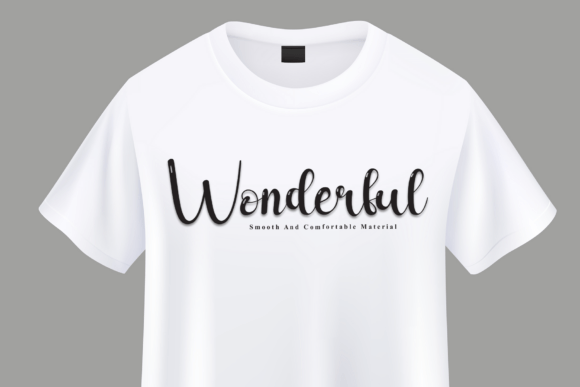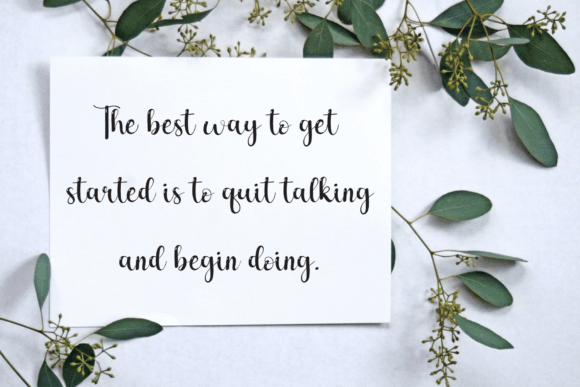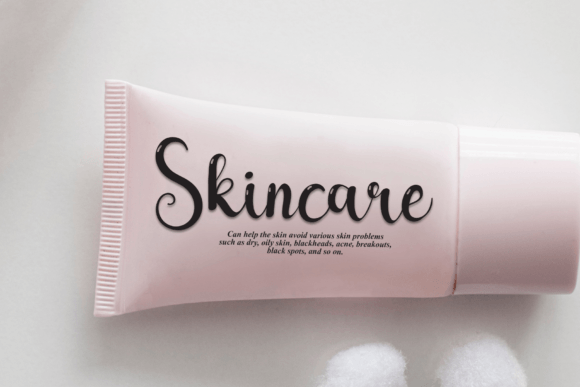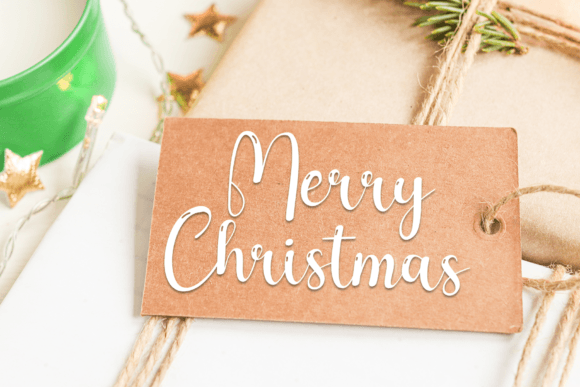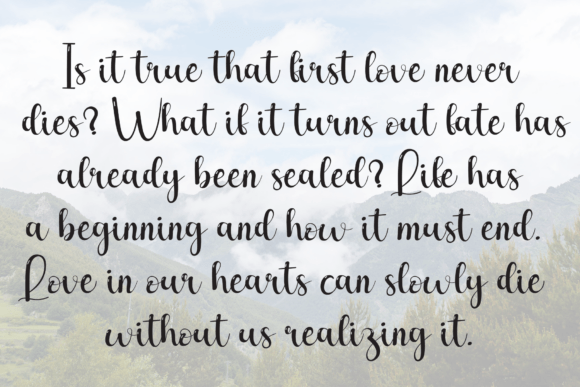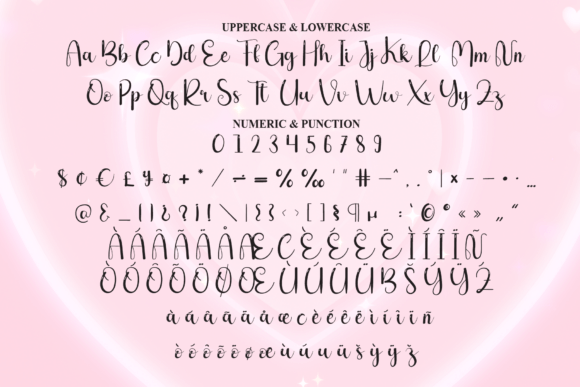
Introducing Bright Heart Font: A Sweet Addition to Your Design Arsenal
Have you ever been in the middle of a design project, and suddenly, you just can’t seem to find the right font? I recall a particularly frustrating moment when I was working on a wedding invitation design. My client wanted something that exuded warmth, friendliness, and a dash of whimsy. I scoured the internet, tried out countless fonts, but nothing seemed quite right. That was until I stumbled upon Bright Heart Font. This charmingly handwritten display font has been a game-changer for me, and I’m excited to share it with you!
Bright Heart Font is a confection of sweetness and friendliness delicately wrapped in each letter. Here are some things I absolutely love about it:
• Sweet and Whimsical Design: Bright Heart Font is perfect for lending a touch of magic to wedding invitations, greeting cards, or any other design that needs a sprinkle of fun.
• Ease of Use: This font is incredibly easy to read and works beautifully in both digital and print formats.
• 💕 Emotional Connection: The handwritten nature of Bright Heart Font creates an instant emotional connection with the reader, making it ideal for projects that require a personal touch.
While Bright Heart Font is a stunning addition to any design project, there are a few quirks to be aware of:
• 🤔 Limited Use in Small Sizes: Due to its intricate design, Bright Heart Font may not be the best choice for body text or small font sizes.
• ⚠️ Requires Attention to Kerning: As with any handwritten font, kerning can be a bit tricky. Make sure to adjust the letter spacing to achieve the best results.
The Story Behind Bright Heart Font
Bright Heart Font was designed with the intention of creating a font that would bring a smile to the reader’s face. The designer, inspired by the whimsical world of children’s books and handmade crafts, set out to create a font that would evoke feelings of warmth and friendliness. The result is a font that is both sweet and playful, perfect for designs that require a touch of personality.
Q: What type of projects is Bright Heart Font best suited for?
A: Bright Heart Font is perfect for designs that require a touch of whimsy and friendliness, such as wedding invitations, greeting cards, and children’s books.
Q: Is Bright Heart Font available in different weights or styles?
A: Currently, Bright Heart Font is available in a single weight. However, the designer may release additional weights or styles in the future.